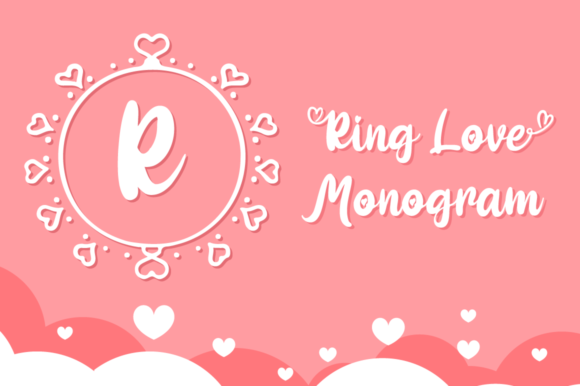
Make your designs pop with Ring Love Monogram, the ultimate decorative font for all your creative endeavors! This exquisite font boasts an authentic style and vibe, perfect for capturing the essence of your special moments and leaving a lasting impression.
Unleash your imagination and let Ring Love Monogram transform your business designs, logos, and branding into works of art. Its elegant curves and charming details will elevate your social media posts, adding a touch of sophistication to your online presence.
Create unforgettable wedding cards that radiate love and joy. Ring Love Monogram will make your invitations and announcements truly special, conveying the emotions and excitement of your big day.
But don't limit yourself! This versatile font is the perfect choice for display boards, adding a touch of whimsy and intrigue to your presentations. Its playful yet refined character will captivate your audience, making your message stand out.
Indulge in the beauty of Ring Love Monogram and let your creativity soar. Whether you're a seasoned designer or just starting your artistic journey, this font will empower you to create designs that shine. Its timeless appeal ensures that your creations will continue to impress for years to come.